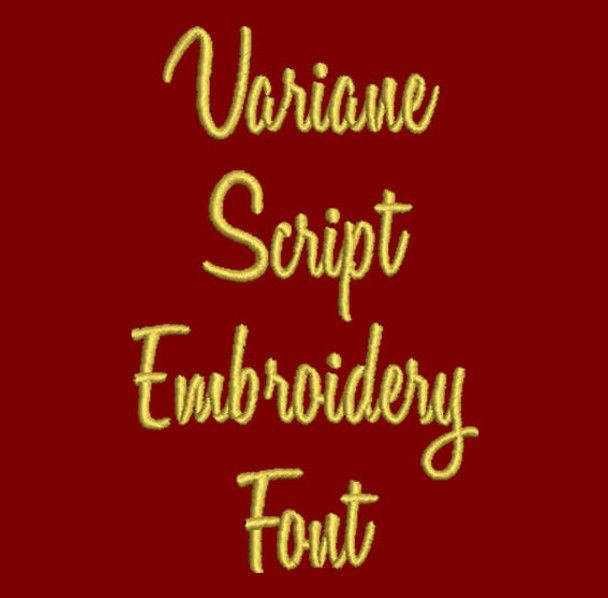
Title: Variane Script machine embroidery font
This Variane Script font is perfect for personalizing clothes, bags, towels and linens!
This beautiful font would look amazing as a Monogram on Totes, School bags and purses!